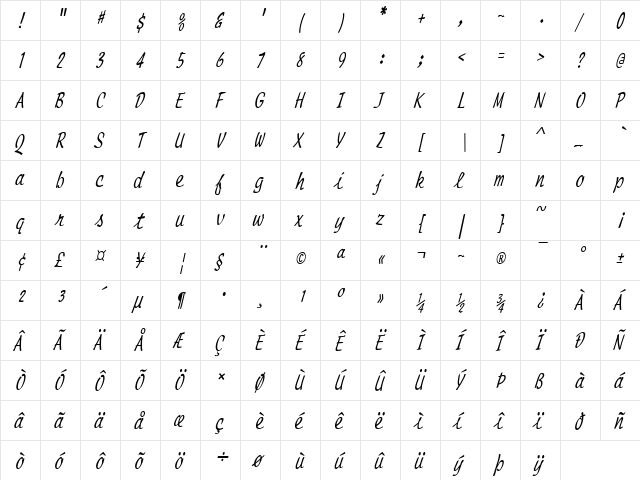
Manuscript Thin Italic
Design Context for Manuscript Thin Typeface
Manuscript Thin brings a calligraphic fluidity to the page — its connecting strokes and expressive curves give it an unmistakably human quality. The delicate stroke weight brings airiness and refinement to layouts.
Font Pairing: Combine Manuscript Thin with a simple geometric sans for maximum contrast — the tension between flowing curves and clean structure is a classic typographic pairing.
Pro Tip: Pair Manuscript Thin with a clean sans-serif for supporting text. The contrast between fluid script and geometric structure creates an elegant typographic hierarchy.